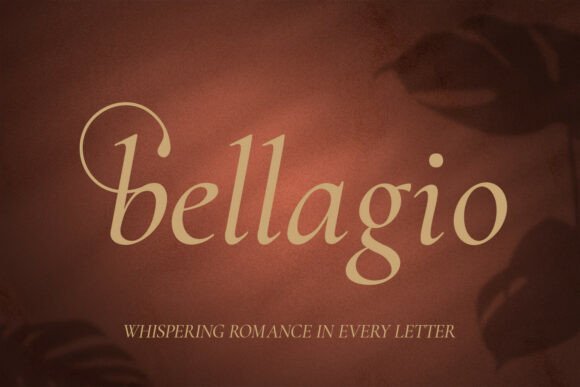
A Moment of Creative Inspiration
Have you ever found yourself lost in the world of typography, searching for the perfect font to convey a sense of luxury and romance? For me, that moment came while browsing through a high-end jewelry store, surrounded by sparkling diamonds and elegant displays. As I gazed at the intricate details of a beautiful diamond necklace, I knew exactly what font I needed to capture its essence: the Bellagio Font.
The Bellagio Font is a masterclass in elegance, featuring stunning, elongated flourishes and a delicate contrast between thick and thin strokes. Its ‘whispering romance’ aesthetic makes it the perfect choice for designers looking to elevate their branding, from perfume packaging to sophisticated wedding invitations. With its ability to make a grand statement without needing excessive ornamentation, the Bellagio Font is a valuable addition to any designer’s toolkit.
By incorporating the Bellagio Font into your designs, you’ll be able to tap into its luxurious and romantic vibe, making it an ideal choice for high-end branding and sophisticated projects.
Bellagio Font Key Features
- Font Family: Bellagio is a serif font family designed by Carol Twombly.
- Unique Characteristics: Bellagio features a classic, elegant design with subtle flair and refined details, making it suitable for formal and sophisticated applications.
Bellagio Font Review
Overall, I think the Bellagio Font has some great qualities that make it a solid choice for certain projects. ✨ Here are a few things that work well:
- Highly legible and clear, even at smaller font sizes
- Pretty and elegant design, perfect for luxury or high-end branding
- A wide range of weights and styles to choose from, giving designers a lot of flexibility
However, like any font, the Bellagio Font also has some limitations. ⚠️ Here are a few things to keep in mind:
- Some users have reported issues with the font being too ornate or over-the-top for certain projects
- Not as versatile as some other fonts, may not work well for body text or everyday use
- Can be quite heavy on the system resources, so may not be the best choice for older computers or devices
Overall, I think the Bellagio Font is a great choice for projects that require a high level of elegance and sophistication. It’s perfect for luxury brands, high-end packaging, or any project where you want to make a statement. Just be mindful of the limitations, and use it judiciously.
Getting the Most Out of Bellagio Font
To get the most out of the Bellagio font, use it for:
1. Luxury branding and packaging.
2. High-end event invitations.
3. Elegant product labels.
The Bellagio font is commonly used for:
2. Luxury product advertising.
3. Upscale restaurant menus.
Alternatives to Bellagio Font
The Great Vibes Font is a beautiful script font that is perfect for adding a touch of elegance to your designs. It is ideal for use in wedding invitations, branding, and packaging. It is a more modern and sleek alternative to the Bellagio Font, with a more refined and sophisticated feel.
Comparison: While both fonts have a luxurious feel, Great Vibes is more versatile and can be used in a wider range of designs. Bellagio Font is more ornate and may be better suited for more formal or traditional designs.
The Carolyna Pro Font is a modern script font that is perfect for adding a touch of sophistication to your designs. It is ideal for use in branding, packaging, and advertising. It is a more contemporary alternative to the Bellagio Font, with a more dynamic and energetic feel.
Comparison: While both fonts have a luxurious feel, Carolyna Pro is more modern and edgy, making it a better choice for younger or more avant-garde designs. Bellagio Font is more classic and traditional.
The Alex Brush Font is a beautiful script font that is perfect for adding a touch of elegance to your designs. It is ideal for use in branding, packaging, and invitations. It is a more refined and sophisticated alternative to the Bellagio Font, with a more subtle and understated feel.